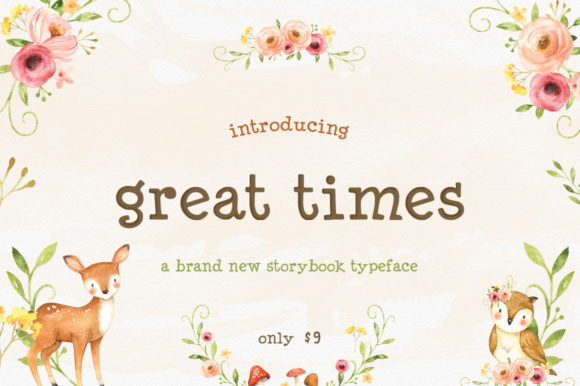
Great Times Font
Introducing Great Times Font, the serif font that will instantly captivate your heart. Created by the talented designers at Salt and Pepper Fonts, this font is more than just a collection of characters - it's a journey into a world of creativity and style.
Imagine yourself strolling through a picturesque cafe, sipping on your favorite latte, and effortlessly jotting down your thoughts with a vintage typewriter. That's the essence of Great Times Font. With its hand-drawn typewriter feel, this font brings a touch of nostalgia and charm to any design project.
Looking to make a statement in your T-shirt designs? Great Times Font is your perfect companion. Its bold and expressive characters will turn heads and make your message impossible to ignore. Whether you're promoting a cause, expressing your creativity, or simply looking to stand out from the crowd, this font will elevate your designs to new heights.
But it's not just about making a visual impact. Great Times Font is also incredibly versatile and easy to use. Its clean and legible characters make it suitable for a wide range of applications, from branding and packaging to social media graphics and websites. With this font, your words will effortlessly convey the emotions and messages you want to share.